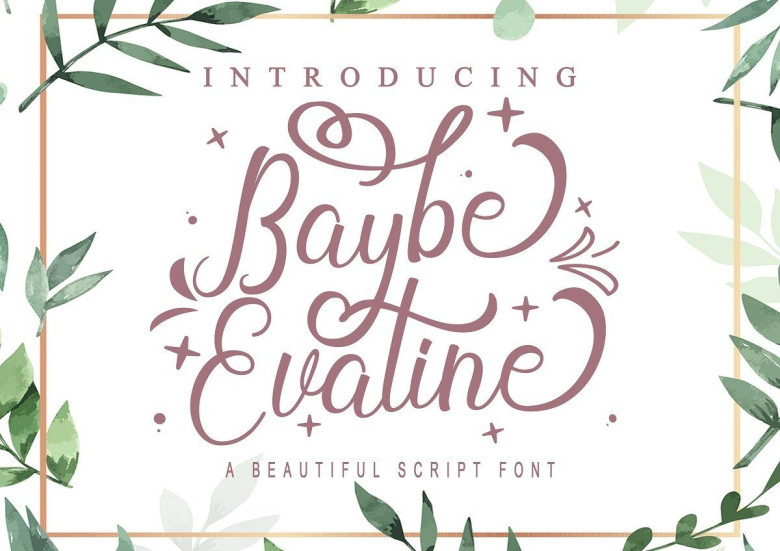
Baybe Evaline Modern Calligraphy Script Font
Baybe Evaline Font is a brush script that is beautiful and unique, it is a model of modern calligraphy typefaces, in combination with a calligraphy brush writing style.
This font is perfect for branding projects, logo, wedding designs, social media posts, advertisements, product packaging, product designs, label, photography, watermark, invitation, stationery and any projects that need modern calligraphy taste.